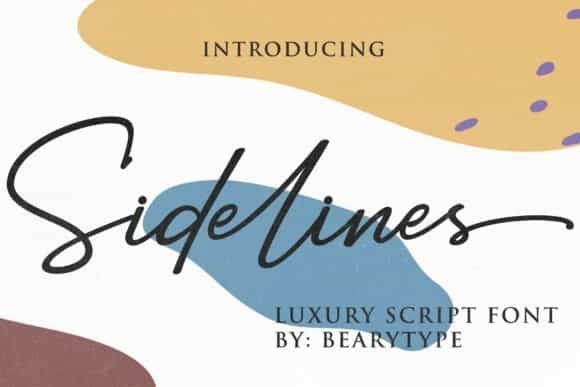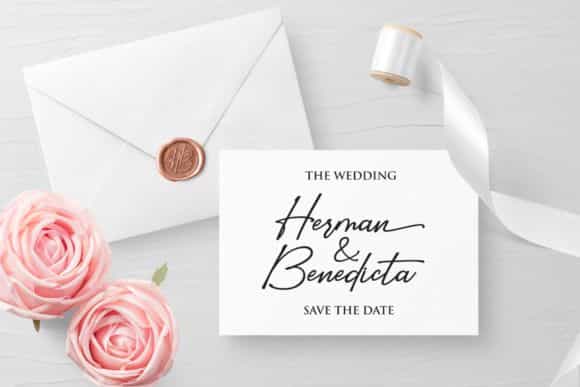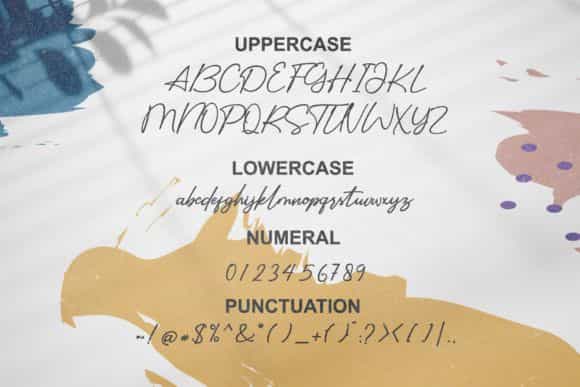
Sidelines Font is the only feminine script font and it is the pure handwriting style, very good for invitations, signatures, logo designs, brands, and resources. This font can also be in the title of books and magazines.